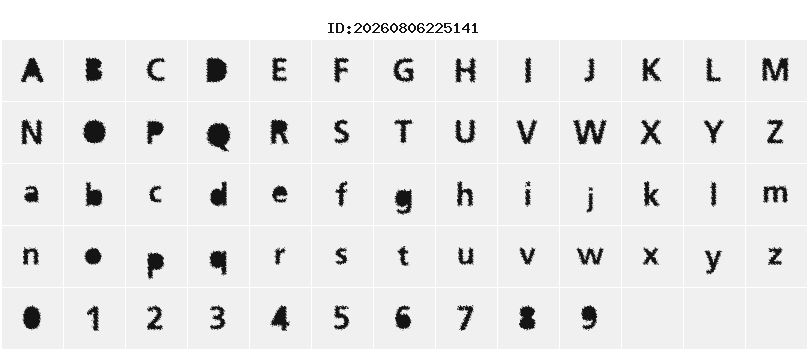
• Font Name: Ocean
Ocean.ttf is a modern, elegant sans-serif font designed for ultimate readability and visual harmony. Perfect for branding, headlines, web design, and print materials.